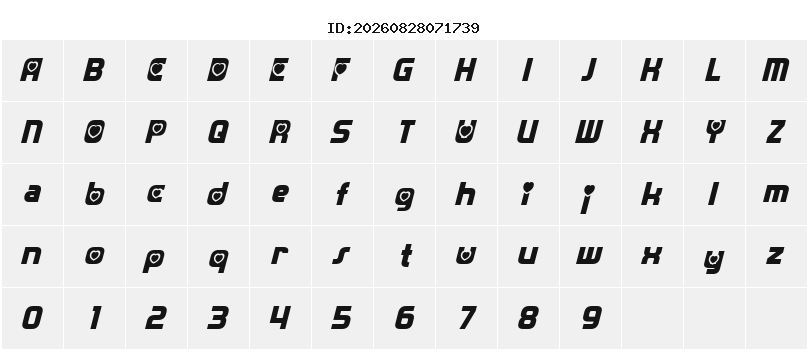
• Font Name: Transmaidens
• Full Font Name: Transmaidens Italic
• Designer: Neale Davidson
About Transmaidens.ttf
Transmaidens.ttf is a modern, elegant sans-serif font designed for ultimate readability and visual harmony. Perfect for branding, headlines, web design, and print materials.